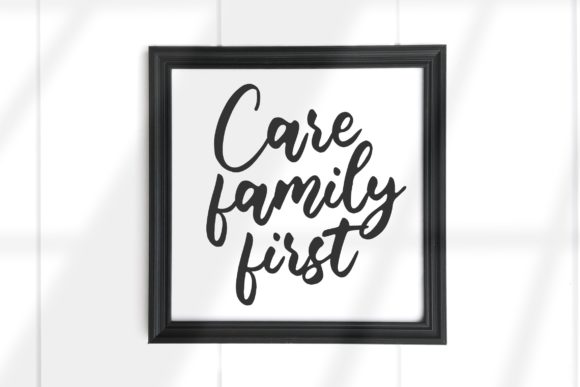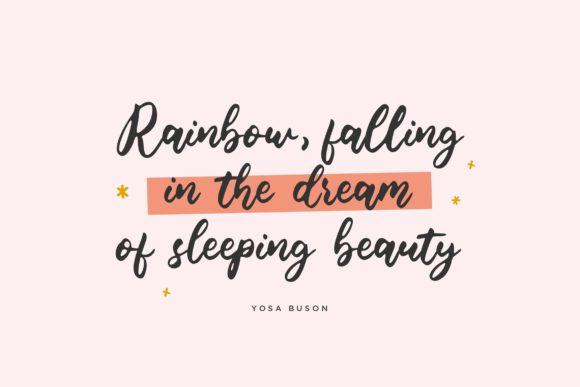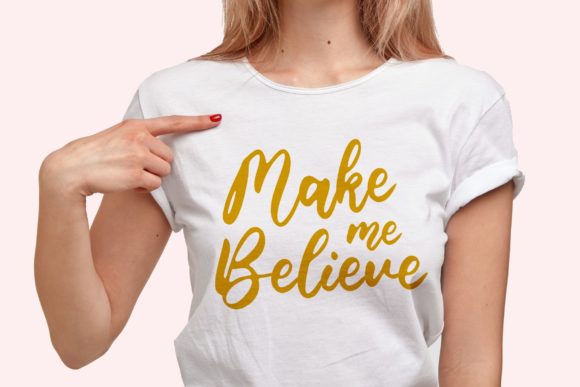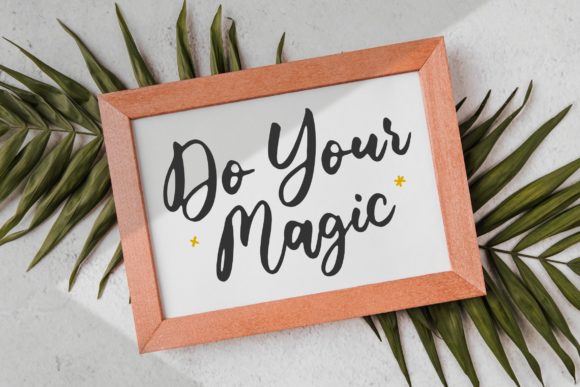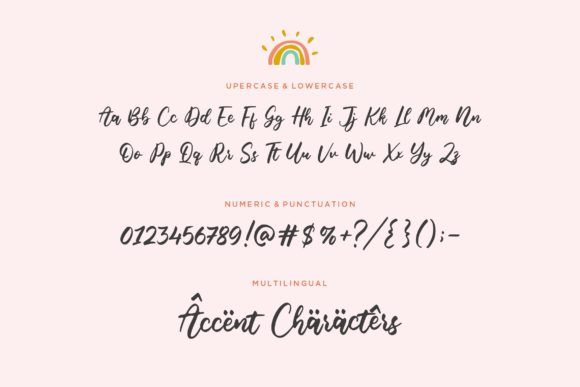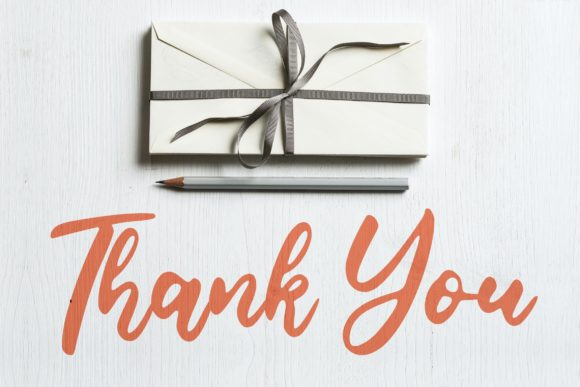
Introducing Blondie Rainbow Font: A Timeless Handwritten Delight
Are you on the hunt for a font that adds a touch of magic to your designs? Look no further than the Blondie Rainbow Font, a lovely and timeless handwritten font that’s perfect for creating eye-catching logos, branding, and quotes. With its unique and beautiful touch, this font is sure to make your design come alive!
The Charm of Blondie Rainbow Font
Blondie Rainbow Font is a stunning example of a handwritten font that’s both elegant and playful. Its charm lies in its imperfections, with each letter carefully crafted to have a unique and beautiful touch. This font is perfect for designers and crafters who want to add a personal touch to their work, making it stand out from the crowd.
Blondie Rainbow Font is an excellent choice for creating eye-catching logos, branding, and quotes. Its elegant and playful design makes it perfect for businesses and individuals who want to make a statement. Whether you’re designing a logo for a new company, creating a brand identity, or crafting a quote for social media, this font is sure to impress.
What Makes Blondie Rainbow Font Special?
- Unique and Beautiful Touch: Every letter in the Blondie Rainbow Font has a unique and beautiful touch, making it perfect for designs that require a personal touch.
- Timeless Design: The font’s timeless design ensures that it will remain stylish and relevant for years to come.
- Handwritten Elegance: The font’s handwritten elegance makes it perfect for designs that require a touch of sophistication.
- Playful and Whimsical: The font’s playful and whimsical design makes it perfect for designs that require a touch of fun and personality.
- Experiment with Colors: The Blondie Rainbow Font looks amazing in a variety of colors, so don’t be afraid to experiment and find the perfect hue for your design.
- Pair it with Other Fonts: This font pairs well with other fonts, so try combining it with a bold font for a striking contrast.
- Use it for Headings and Titles: The Blondie Rainbow Font is perfect for headings and titles, where its elegant and playful design can really shine.
Why Designers and Crafters Love Blondie Rainbow Font
Designers and crafters love the Blondie Rainbow Font for its unique and beautiful touch. Here are a few reasons why:
- Versatile: The font is versatile and can be used for a wide range of designs, from logos and branding to quotes and social media graphics.
- High-Quality: The font is high-quality and comes with a range of features, including a range of characters and symbols.